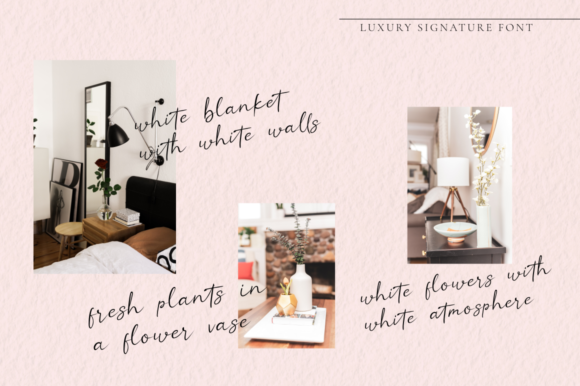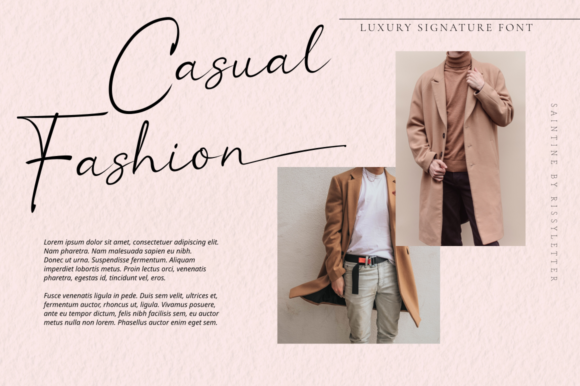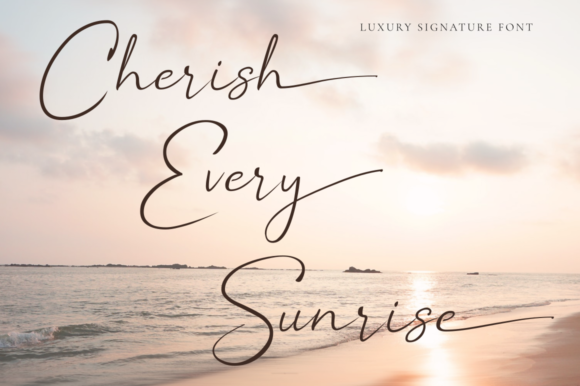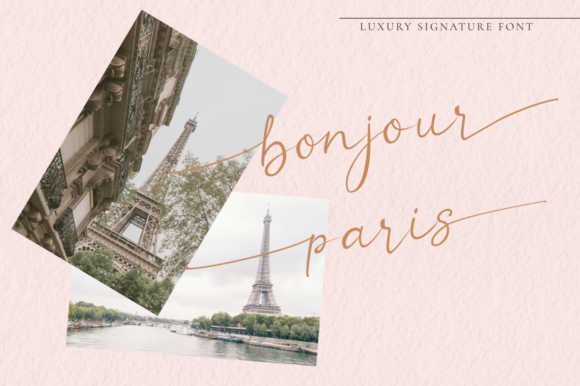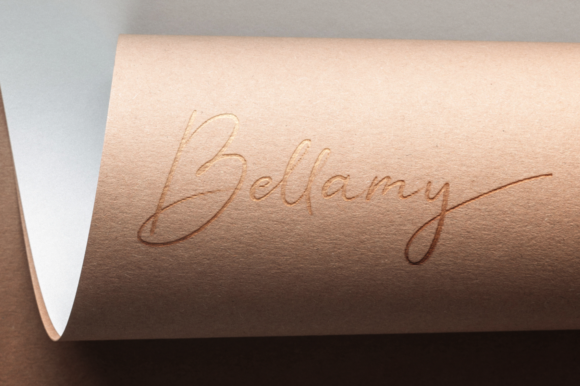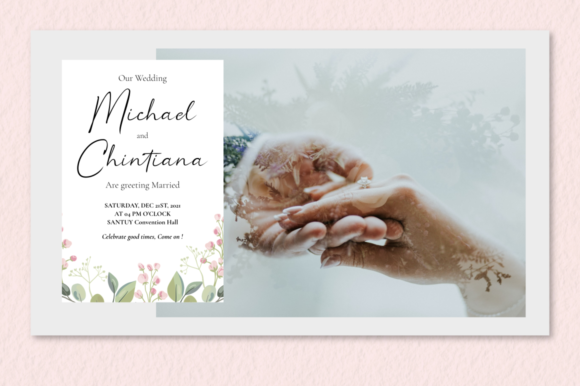
Introduction to Saintine Font Font
Fonts play a crucial role in design, and the Saintine Font font is a typeface that brings both character and versatility to any project. Whether you’re working on a branding project, a website, or a print design, the Saintine Font font offers a unique style that can elevate your work.
Saintine is a stylish, elegant, and modern signature script font.
It is perfect for various projects such as logos and branding, hand lettering, merchandise, advertisements, invitations, social media posts, etc This font is PUA encoded, which means you can access all of the glyphs and swashes with ease.
Key Features of Saintine Font Font
Why Choose Saintine Font Font?
The Saintine Font font is more than just a typeface – it’s a design tool that helps you communicate your message with style and clarity. Its unique character set and versatile design make it suitable for a wide range of applications, from elegant invitations to bold headlines.
With its carefully crafted letterforms and balanced proportions, the Saintine Font font ensures readability and visual appeal across all mediums.
What makes Saintine Font font special?
The Saintine Font font stands out with its unique design, exceptional readability, and versatility across various design applications.